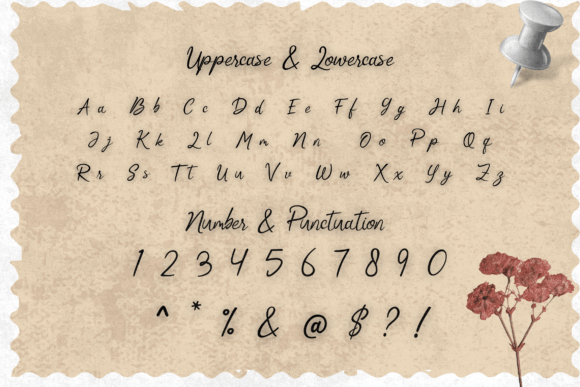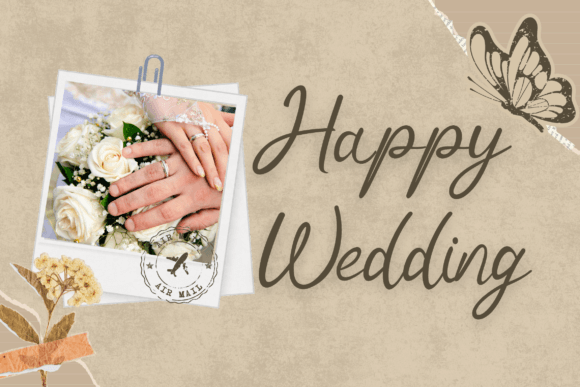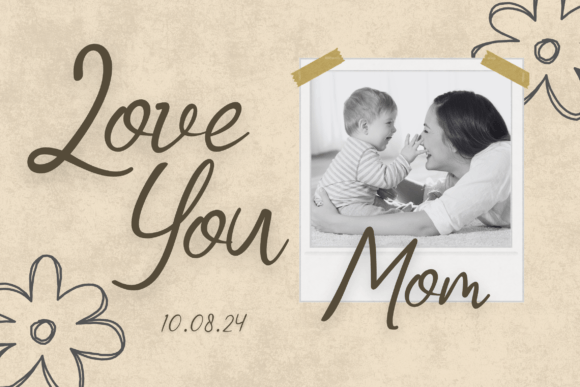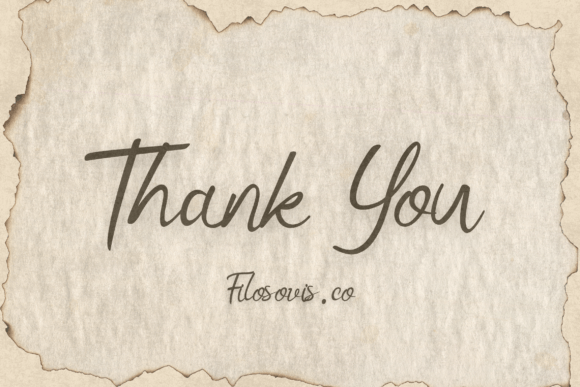
Introduction to Rahaiya Font
Have you ever stared at a blank canvas, waiting for inspiration to strike? For designers, this moment is all too familiar. But what if you had a secret tool to unlock your creativity and bring your ideas to life? Enter the Rahaiya Font, a modern handwritten font that adds a playful twist to any design. With its whimsical letterforms and unique charm, it’s perfect for eye-catching headlines, vibrant posters, and playful branding projects.
Imagine infusing your creative project with a dash of personality and joy. That’s exactly what the Rahaiya Font offers. Whether you’re working on a free download or a high-quality design resource, this font is sure to elevate your work. Plus, with its transparent background, you can easily integrate it into any design without worrying about distractions.
Key Features of Rahaiya Font
- High-quality, professional design ideal for creative projects
- Features a unique, modern style that sets it apart from other fonts
Honest Review: Rahaiya Font
I recently stumbled upon the Rahaiya Font while searching for a unique design resource for my creative project. I was excited to find a high-quality font that’s free to download. The transparent background feature is a definite plus, making it easy to incorporate into any design.
- Unique and elegant design style ✨
- High-quality font with crisp, clear details ✨
- Limited character set, which may be a problem for extensive use ⚠️
- No bold or italic variations available ⚠️
Overall, I’m impressed with the Rahaiya Font. It’s a great addition to any designer’s toolkit, especially for creative projects that require a touch of elegance. While it may not be perfect, its unique design style and high-quality details make it a valuable resource worth considering.
Tips for Getting the Most Out of Rahaiya Font
Use the Rahaiya Font in conjunction with other design resources, such as graphics and images, to create a unique and creative design. Experiment with different font sizes and styles to add depth and visual interest to your design. Take advantage of the font’s high quality and transparency features to create a professional-looking design.
Common Use Cases for Rahaiya Font
The Rahaiya Font is a versatile design resource that can be used in a variety of creative projects, including branding, marketing materials, and digital design. It is particularly useful for creating unique and eye-catching designs with a transparent background.
Alternatives to Rahaiya Font
The Great Vibes Font is a beautiful, elegant script font that is perfect for creative projects requiring a touch of sophistication. It is ideal for use on a transparent background, making it ideal for wedding invitations, branding materials, and other design elements that require a high level of visual appeal. Compared to Rahaiya Font, Great Vibes has a more refined and polished look, making it suitable for a wider range of design applications.
The Alex Brush Font is a high-quality, handwritten script font that is perfect for designers looking for a unique and creative touch. It is ideal for use on free download materials, such as business cards, brochures, and social media graphics. Compared to Rahaiya Font, Alex Brush has a more rustic and organic feel, making it suitable for design projects that require a more laid-back and casual tone.